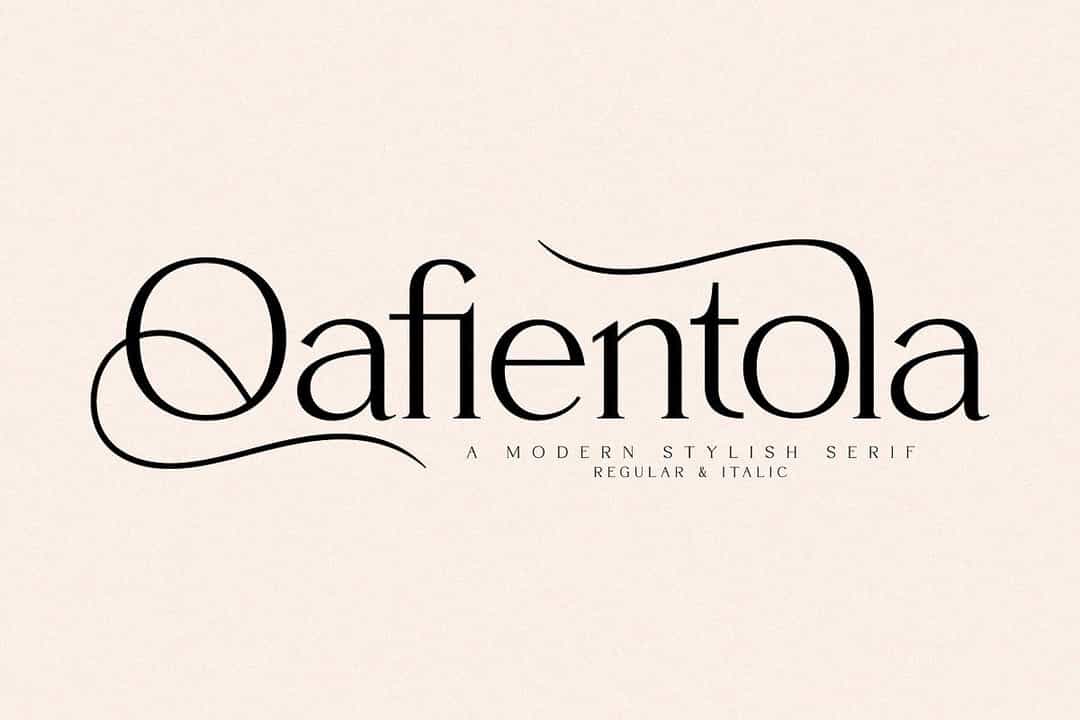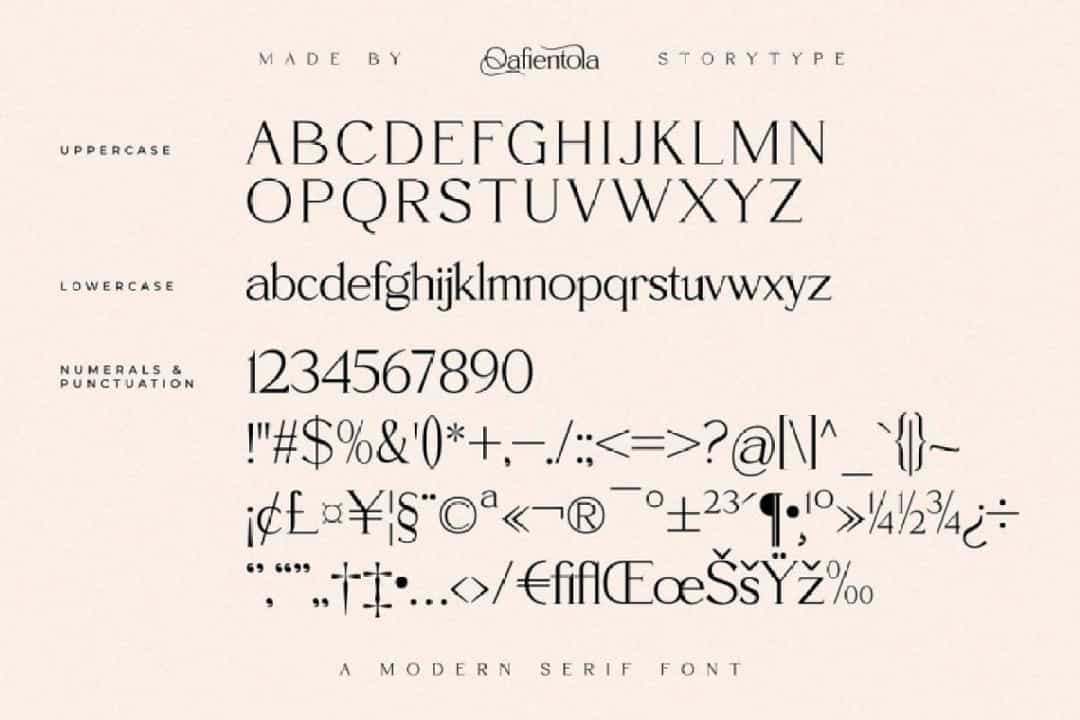
Qafientola Font, designed by Storytype, is an elegant serif font with its own distinct style and modern appeal, perfect for creating classy logos, movie/book name designs, fashion brand magazines, clothing letters, quotes and other creative projects. This font can also help make you stand out in an audience! It makes the perfect font choice to adorn apparel letters as well as to quote!